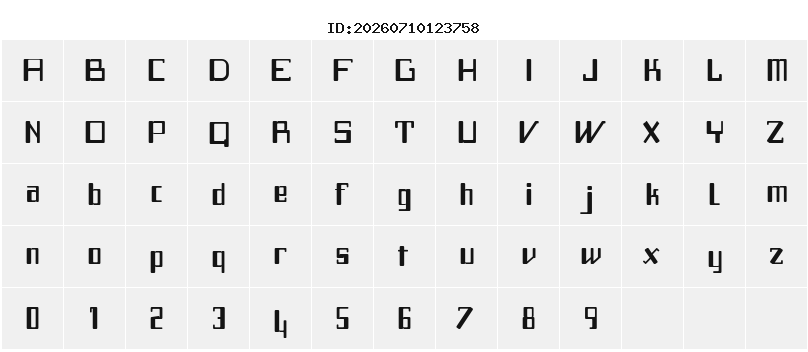
• Font Name: f2 Tecnocratica
• Designer: deFharo
• Description: Tecnocr·tica es una tipografÌa display geomÈtrica sin serif con contraste entre astas y acabado redondeado. La fuente dispone de 373 caracteres (Latin extended). Descarga la versiÛn completa / Download full font: http://wp.me/p11PzK-1sU
f2 Tecnocratica.ttf is a modern, elegant sans-serif font designed for ultimate readability and visual harmony. Perfect for branding, headlines, web design, and print materials.